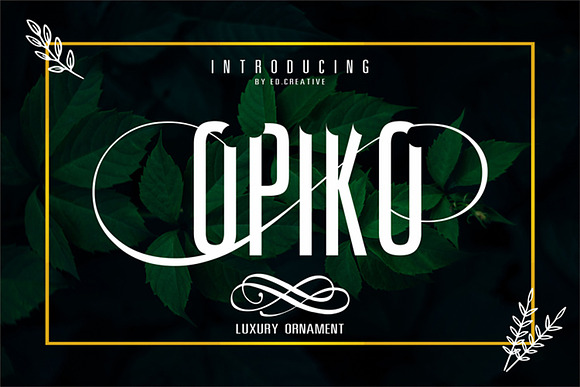
Opiko Font
Opiko Font is perfect for modern branding, website headings, editorial layouts, packaging design, and social media graphics. Its clean, geometric, and versatile style makes it suitable for a wide range of design projects.
What makes Opiko Font exciting is its minimalist yet distinctive letterforms that combine readability with a contemporary aesthetic. The font’s design allows it to adapt seamlessly to both creative and professional applications.
The Opiko Font family includes Regular, Bold, Italic, and Light variations, offering designers flexibility to create cohesive typographic hierarchies and visually appealing compositions.